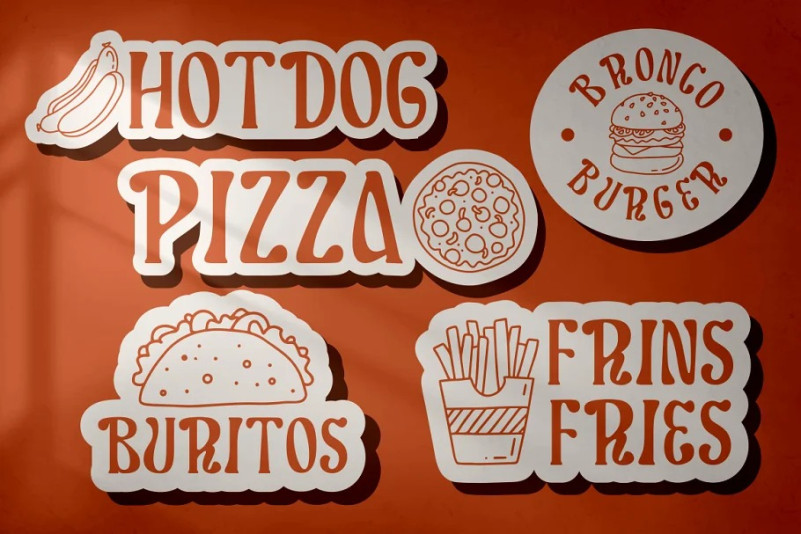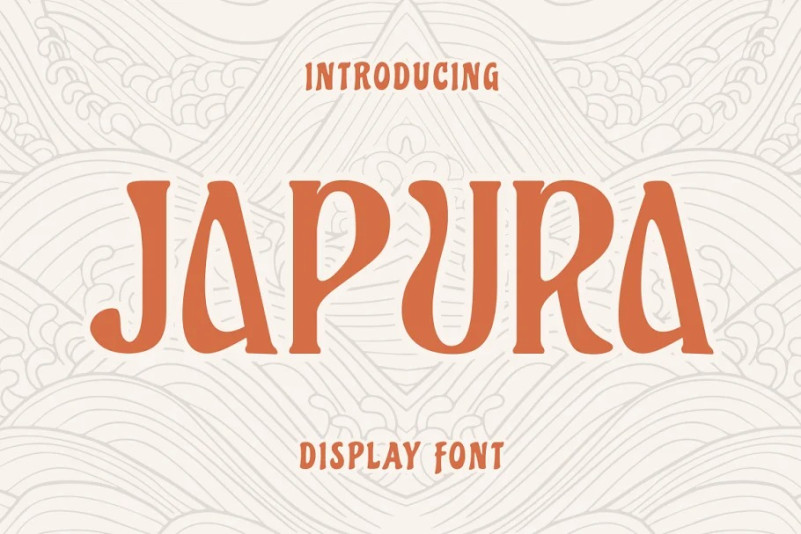
Japura Font
Japura Display Font is a super unique modern display typeface. The classic, fun and trendy impression is very visible. But in Japura font I combine several variations such as the ligature. It makes this font even more unique and different. Japura font inspired by elegant typeface and posters with display themes. Japura is also great for any kind of display purpose from album, cover,poster, label, tshirt, apparel, signage, quote, logo, greeting card,logotype and many more. Japura is also support multi language.